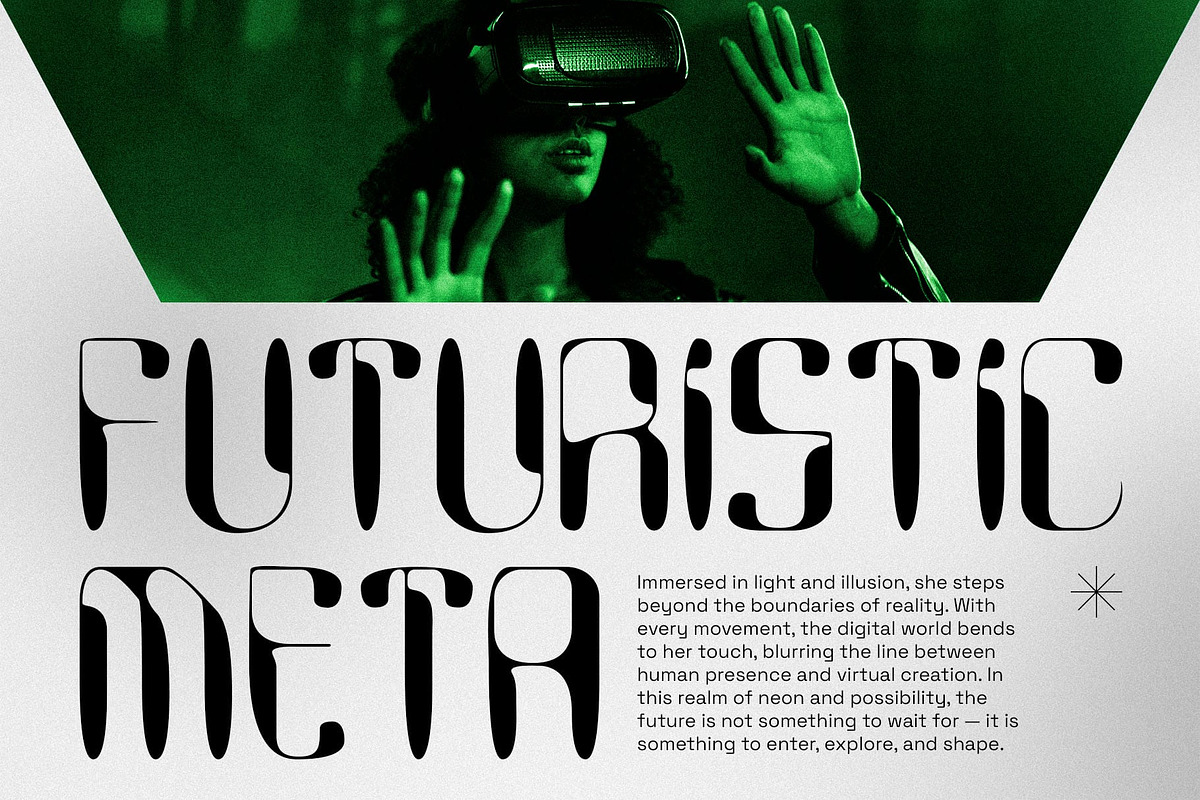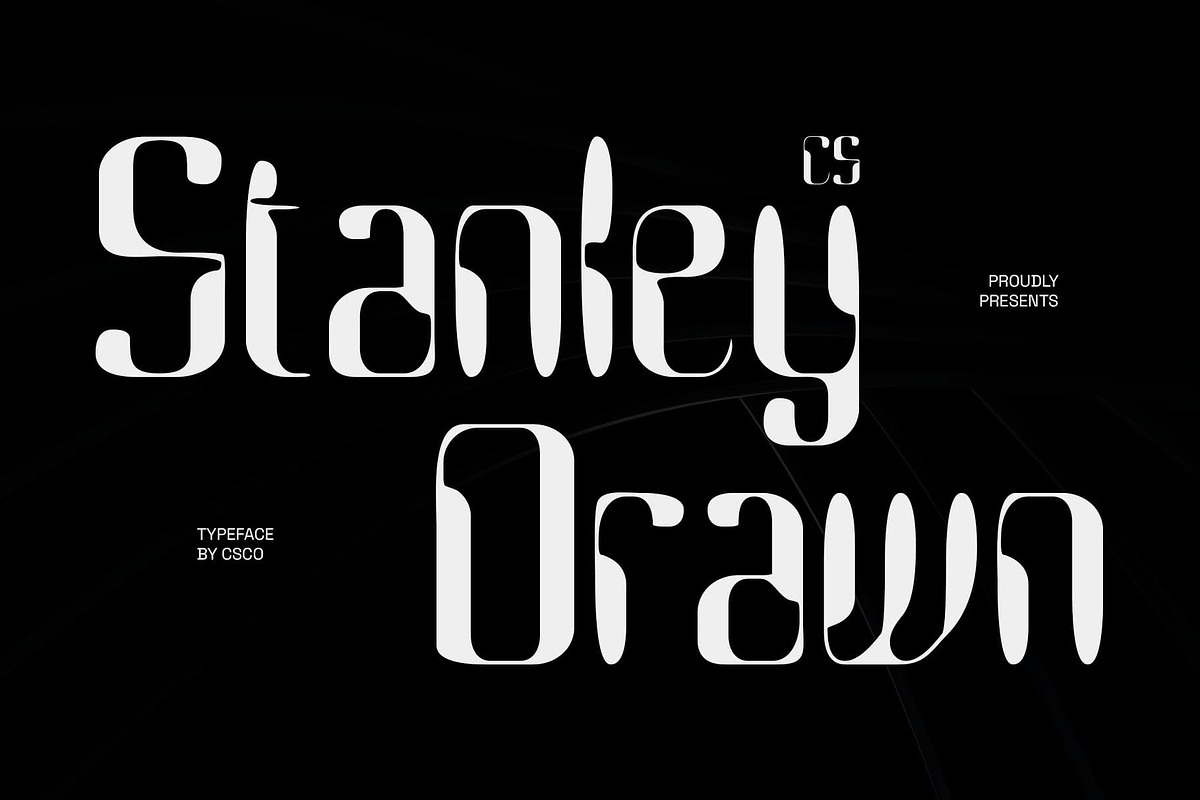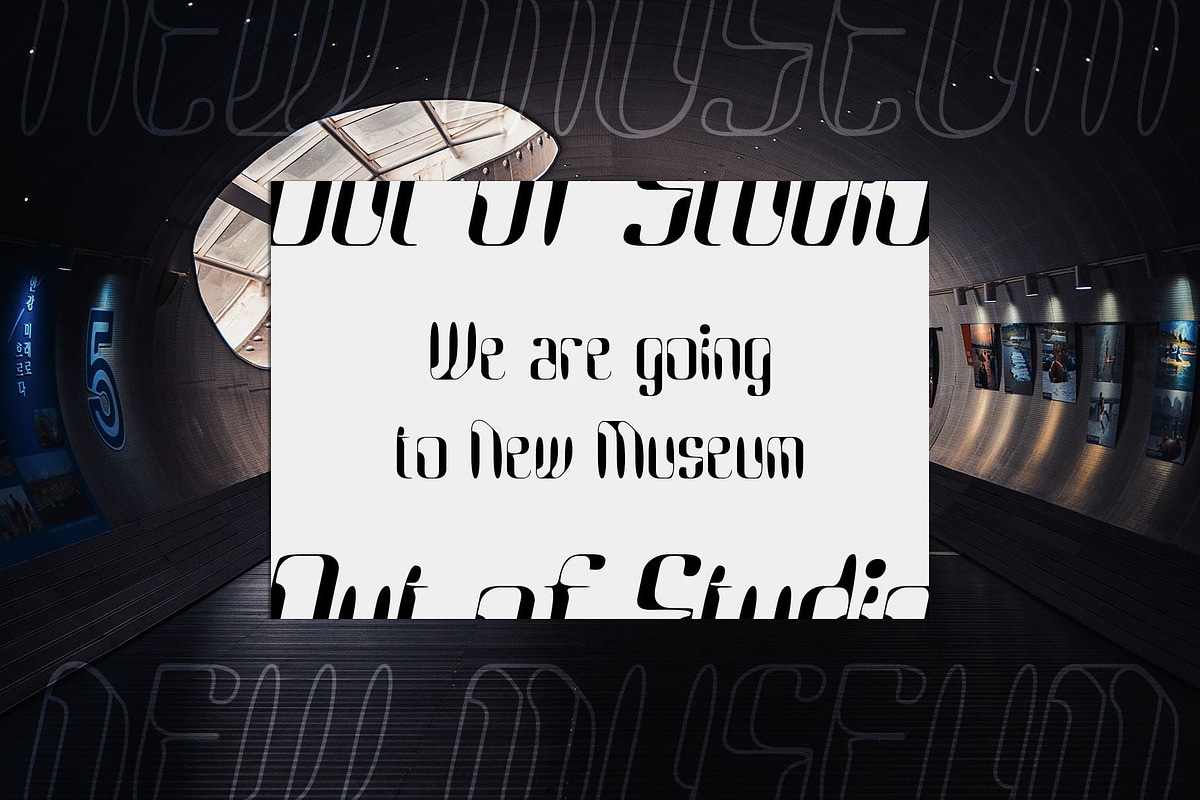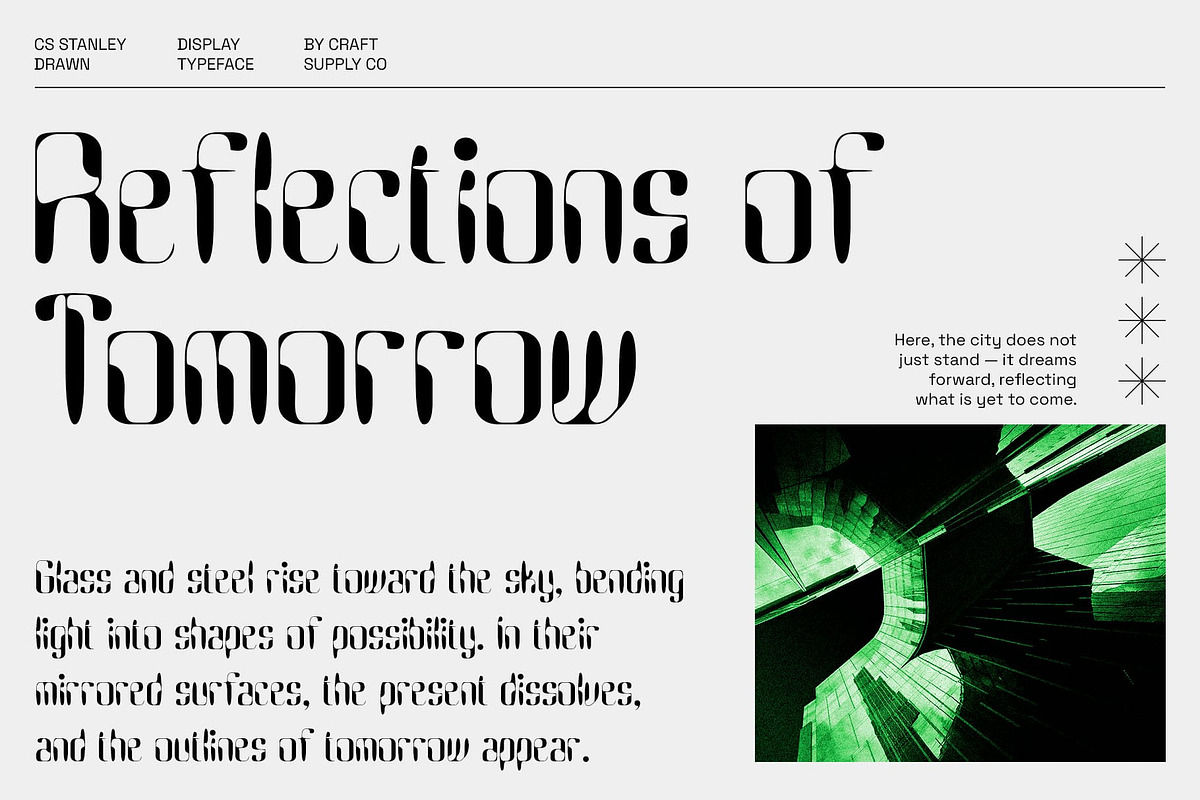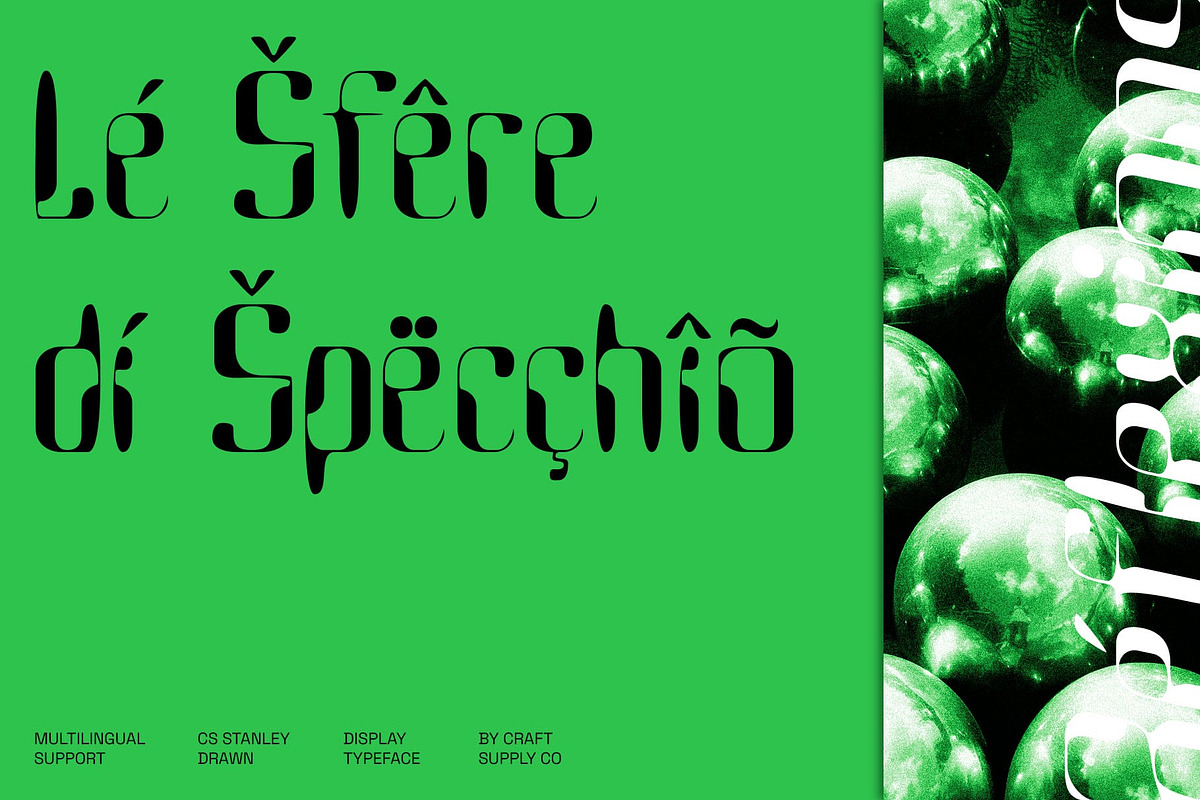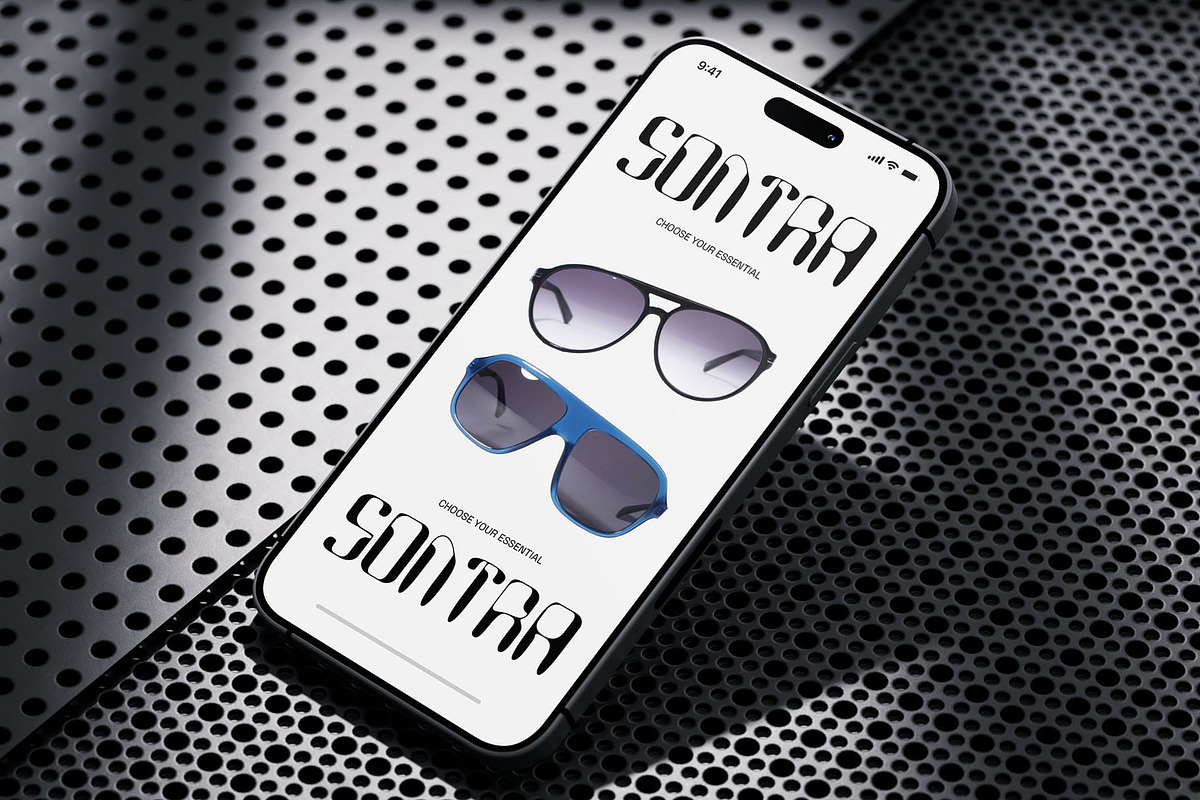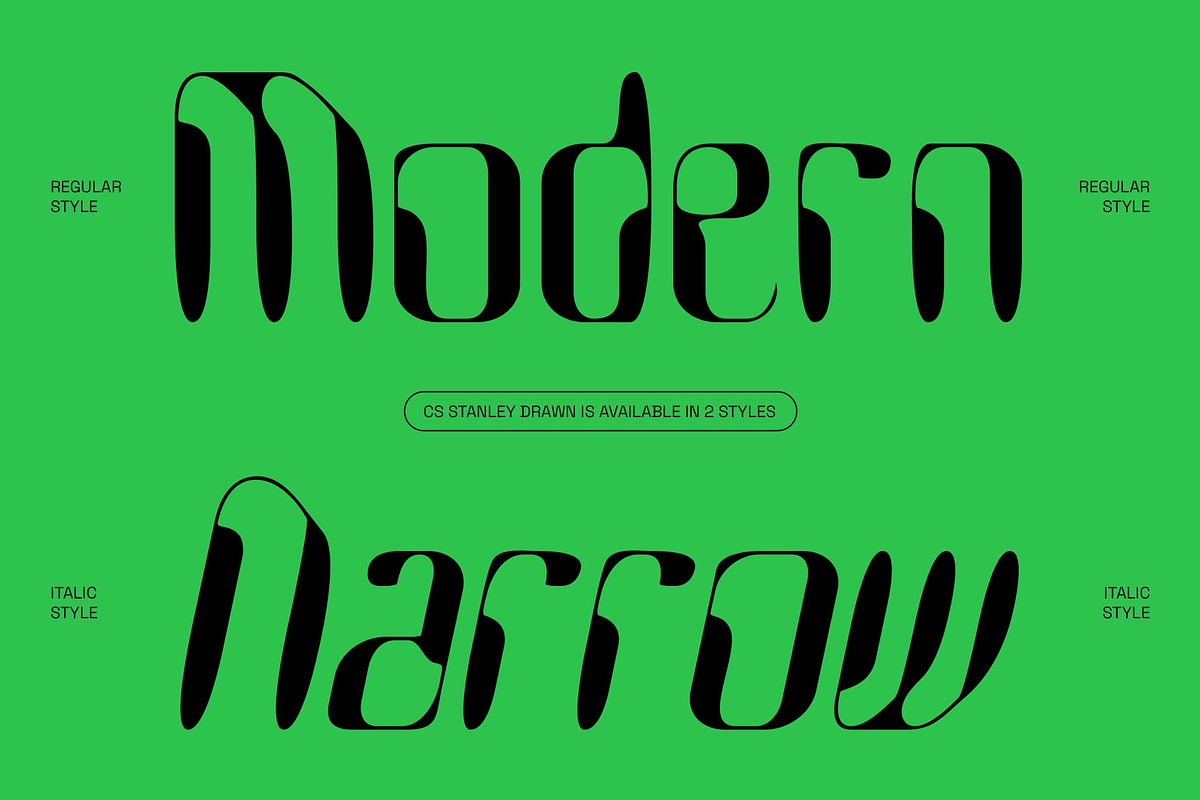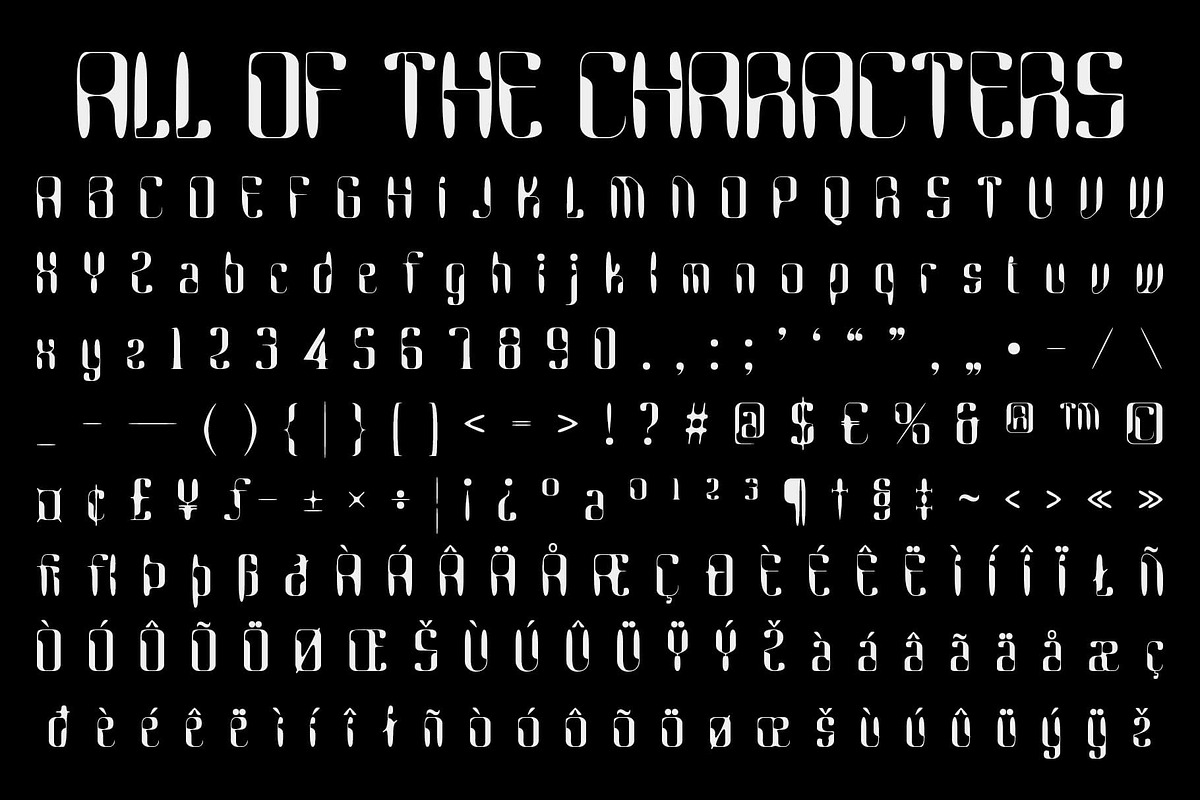
CS Stanley Drawn
CS Stanley Drawn – Techno Display Font with Electric Contrast
Futuristic Techno Inspiration This is a bold display font that channels the dynamic flow of electricity through its letterforms. Inspired by techno aesthetics, it brings modern energy and striking contrast to any design. Its bold structure makes it perfect for projects that need a futuristic edge with commanding visual presence.
Drawn Texture for Artistic Depth What sets font apart is its drawn texture. Instead of clean, mechanical perfection, each character carries a handmade finish that adds personality and vibrancy. This drawn effect amplifies the font’s futuristic style while giving it a unique artistic depth that makes it stand out from other techno-inspired typefaces.
Perfect for Bold Branding and Digital Projects Whether used for game titles, technology logos, or promotional posters, thrives in high-energy contexts. Its electrifying design works especially well for industries tied to innovation, gaming, and digital creativity, ensuring your visuals capture attention and leave a memorable impression.
Versatility Across Modern Design Needs Though built with a futuristic core, adapts across a wide spectrum of design applications. From branding and advertising to event graphics and editorial spreads, its unique combination of techno influence and hand-drawn artistry offers endless possibilities. This versatility makes it a go-to choice for designers seeking both impact and individuality.
- CS Stanley Drawn Regular
- CS Stanley Drawn Italic